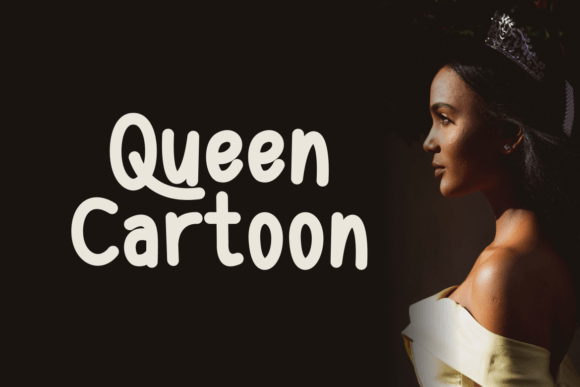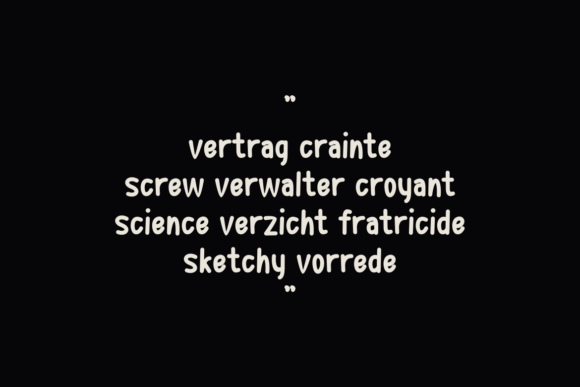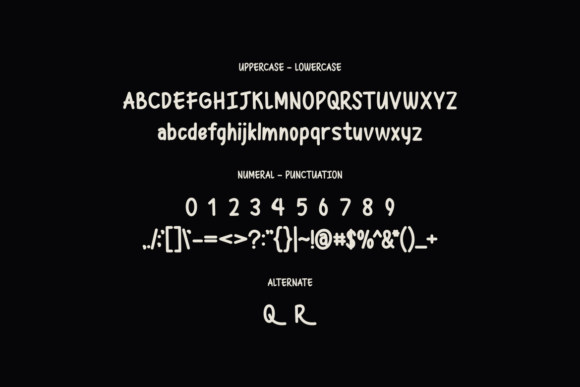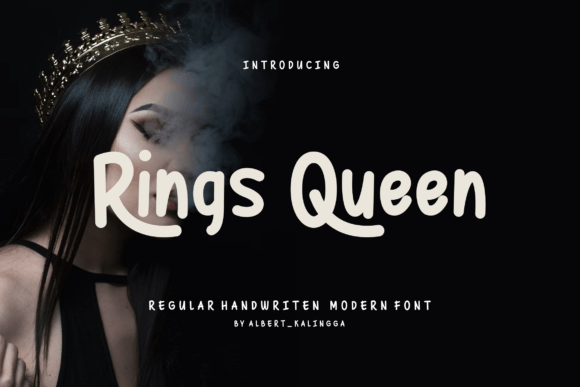
Introduction to Rings Queen Font
**Rings Queen Font** – Modern Font is a bold and authentic display font.
👤 Author kalingga.albert
The font is suitable for any branding project like logo, esports, and many more outstanding in a wide range of contexts.
Key Features of Rings Queen Font
Why Choose Rings Queen Font?
Rings Queen Font offers exceptional quality and versatility, making it a valuable addition to your design toolkit. Whether you’re creating for personal projects or commercial use, Rings Queen Font delivers professional results.